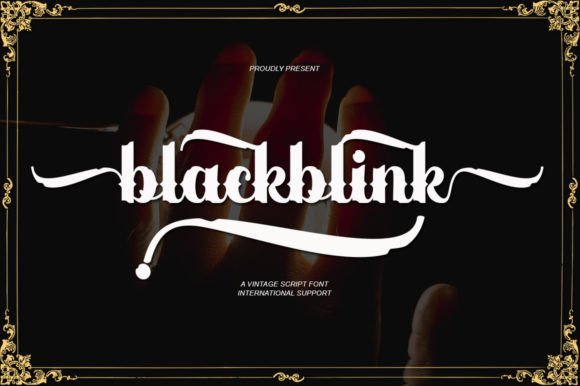
The Designer’s Delight: Uncovering the Charm of Blackblink Font
I’ll never forget the time I was working on a vintage-themed wedding invitation project, and my client specifically asked for a font that would transport their guests back to the 1920s. I scoured the internet, tried out countless fonts, but nothing seemed quite right – until I stumbled upon Blackblink. This beautiful vintage calligraphy typeface instantly captured the essence of the Roaring Twenties, and I knew I had found the perfect fit. In this article, I’ll share with you why Blackblink has become a staple in my design toolkit and how you can make the most of its stunning features.
So, what makes Blackblink so special? Let’s dive into the good stuff! ✨
• ✅ Ease of use: Blackblink is incredibly easy to use, even for those who are new to calligraphy fonts. Its PUA encoding allows you to access all the glyphs and swashes with ease.
• ✅ Vintage charm: This font exudes a sense of nostalgia and sophistication, making it perfect for projects that require a touch of elegance.
• ✅ Highly versatile: Blackblink can be used for a wide range of design projects, from wedding invitations to branding and packaging.
Now, no font is perfect, and Blackblink has a few minor quirks to be aware of: 🤔
• ⚠️ Some characters may require manual kerning: While Blackblink is generally well-spaced, some character combinations might require a bit of manual kerning to get them looking just right.
• ⚠️ Not ideal for body text: Due to its ornate nature, Blackblink is best suited for headlines, titles, and short paragraphs rather than large blocks of body text.
The Story Behind Blackblink: A Designer Inspiration
While the origins of Blackblink are shrouded in mystery, it’s easy to imagine a talented designer pouring their heart and soul into creating this stunning font. Perhaps they drew inspiration from vintage typography, antique books, and elegant calligraphy. Whatever the story, Blackblink is a true masterpiece that deserves to be celebrated.
What is PUA encoding, and why is it important? PUA (Private Use Area) encoding allows font designers to include additional characters, glyphs, and swashes that can be accessed easily. In the case of Blackblink, PUA encoding makes it simple to use the font’s many features.
Is Blackblink suitable for body text? No, Blackblink is best suited for headlines, titles, and short paragraphs. Its ornate nature makes it less suitable for large blocks of body text.